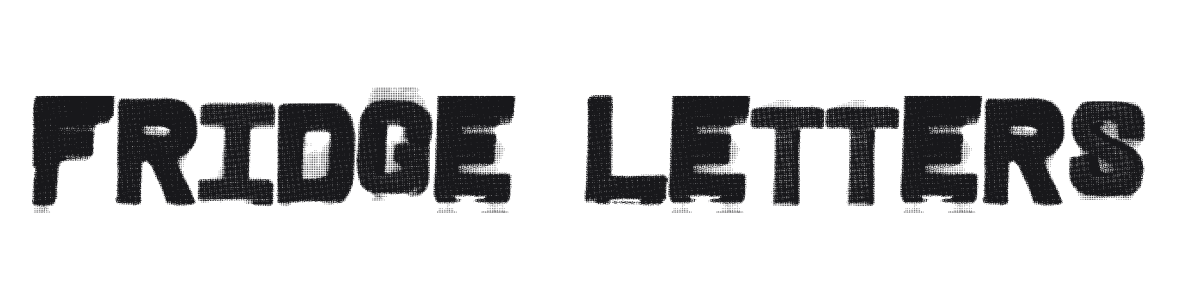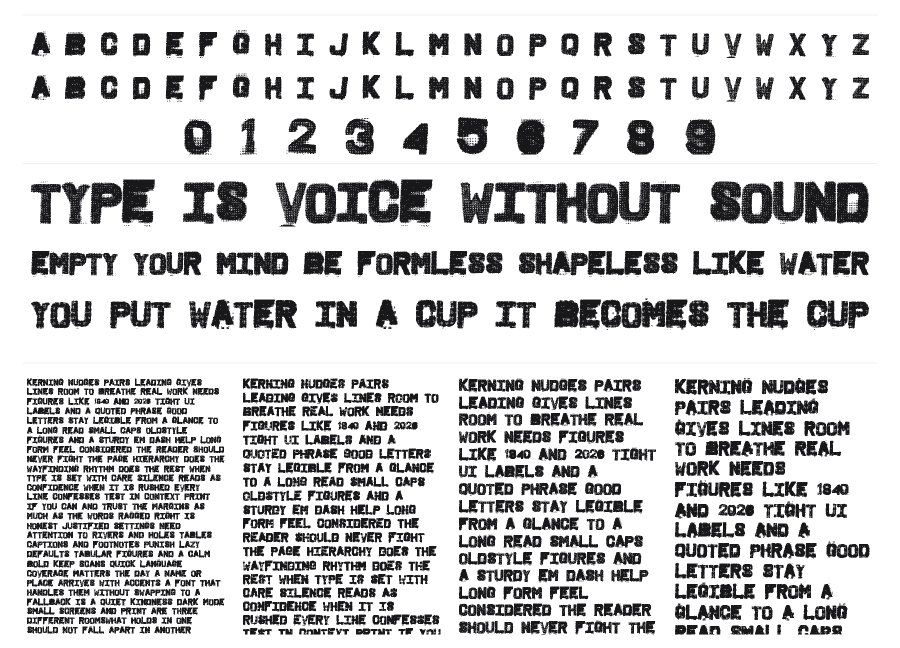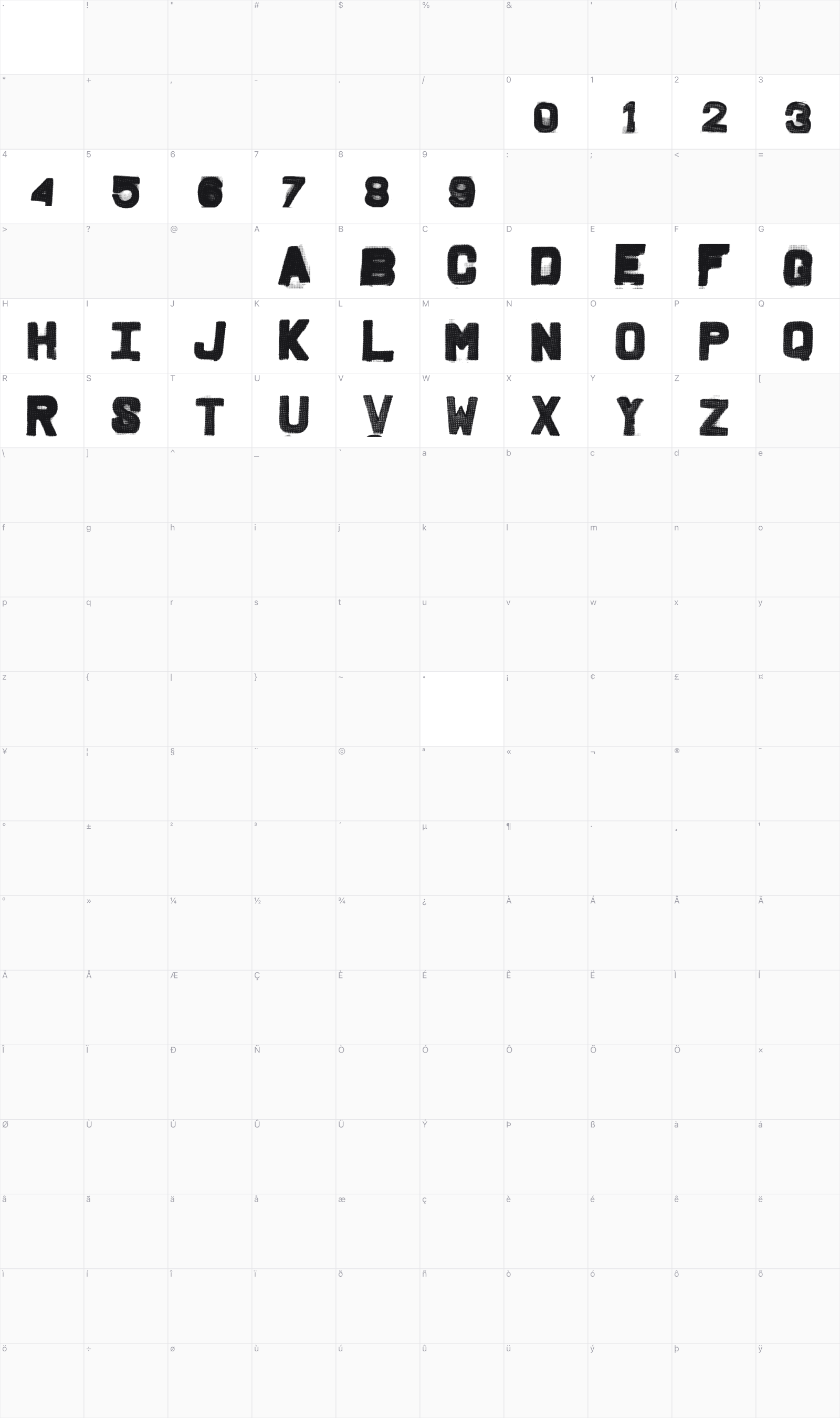
Fridge Letters
Fridge Letters is a chunky, distressed display font inspired by refrigerator magnet letters with a coarse halftone texture pressed into every character. The slight misalignment and variation between letters gives it a cut-and-paste, ransom-note energy. It works loudly and best at large sizes where the texture reads clearly.